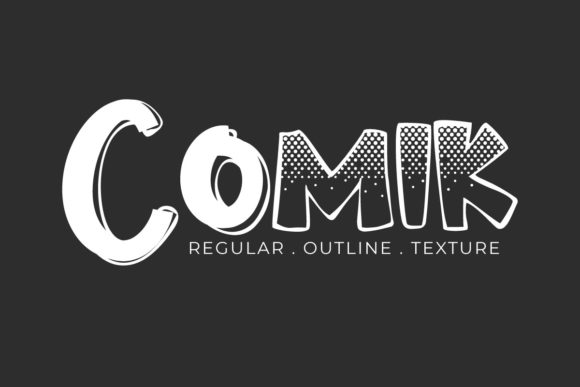
Introducing Comik Font: The Ultimate Retro Display Font for Stunning Designs
In the world of typography, fonts play a crucial role in making or breaking a design. A well-chosen font can elevate your design from ordinary to extraordinary, while a poorly chosen one can have the opposite effect. If you’re looking for a font that can add a touch of fun, uniqueness, and professionalism to your designs, look no further than Comik Font. In this article, we’ll explore the features and benefits of Comik Font, and why it’s the perfect choice for designers looking to create stunning and jaw-dropping designs.
What is Comik Font?
Comik Font is a cool, retro, and outlined display font that boasts a fun and unique cartoon style. Its distinctive design makes it stand out from other fonts, and its versatility allows it to be used in a wide range of design projects. Whether you’re creating a logo, poster, social media graphic, or website, Comik Font is sure to make your designs instantly professional and eye-catching.
The Features of Comik Font
So, what makes Comik Font so special? Here are some of its key features:
- Retro Style: Comik Font has a distinctly retro feel that’s reminiscent of classic cartoons and comics. Its nostalgic charm is sure to appeal to designers looking to add a touch of vintage flair to their designs.
- Outlined Design: The font’s outlined design gives it a bold and striking appearance that’s perfect for making a statement. The outline also helps to improve legibility, making it easier to read even at small sizes.
- Fun and Unique Cartoon Style: Comik Font’s cartoon-inspired design is sure to add a touch of whimsy and fun to your designs. Its unique style is perfect for designers looking to create designs that stand out from the crowd.
- Professional Quality: Despite its playful design, Comik Font is a highly professional font that’s suitable for use in a wide range of design projects. Its high-quality design ensures that it will look great even at large sizes.
The Benefits of Using Comik Font
So, why should you choose Comik Font for your design projects? Here are some of the benefits of using this amazing font:
- Instant Professionalism: Comik Font is designed to make your designs look instantly professional. Its high-quality design and unique style ensure that your designs will stand out from the crowd and look great.
- Jaw-Dropping Designs: With Comik Font, you can create designs that are truly jaw-dropping. Its bold and striking design is sure to grab attention and leave a lasting impression.
- Versatility: Comik Font is a highly versatile font that can be used in a wide range of design projects. Whether you’re creating a logo, poster, social media graphic, or website, Comik Font is sure to work perfectly.
- Easy to Read: Despite its bold and outlined design, Comik Font is easy to read even at small sizes. This makes it perfect for use in designs where legibility is important.
How to Use Comik Font in Your Designs
Using Comik Font in your designs is easy. Here are some tips to get you started:
- Use it as a Display Font: Comik Font is designed to be used as a display font, so use it to add a bold and striking title or heading to your design.
- Experiment with Colors: Comik Font looks great in a wide range of colors, so don’t be afraid to experiment and find the perfect color for your design.
- Pair it with Other Fonts: Comik Font can be paired with other fonts to create a unique and interesting design. Try pairing it with a sans-serif font for a bold and modern look.
- Use it in Digital and Print Designs: Comik Font can be used in both digital and print designs, making it a versatile font that can be used in a wide range of projects.
In conclusion, Comik Font is a cool, retro, and outlined display font that’s perfect for designers looking to add a touch of fun and uniqueness to their designs. Its professional quality and versatility make it suitable for use in a wide range of design projects, from logos and posters to social media graphics and websites. With Comik Font, you can create stunning and jaw-dropping designs that are sure to grab attention and leave a lasting impression.